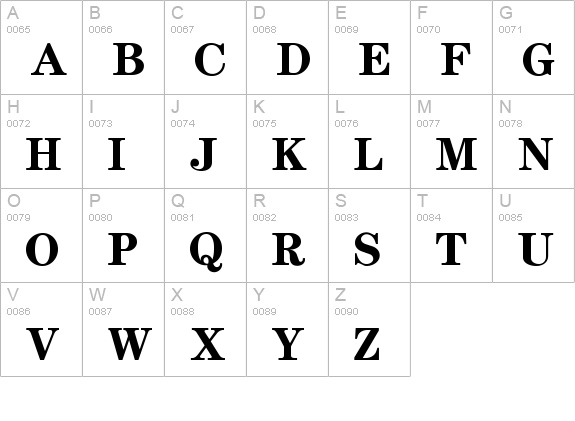
CenturyBold Font Details
CenturyBold is a bold and impactful font that commands attention with its strong, clean lines and classic aesthetics. Designed to make a statement, this font is perfect for headlines, titles, and any design project that requires a touch of sophistication and strength. With its timeless appeal and versatility, CenturyBold is a favorite choice among designers looking to add a touch of elegance to their work. The best part? CenturyBold is available for free download at FontsMarket.com, making it accessible to all designers and creatives looking to elevate their projects with a touch of boldness. Whether you're working on a branding project, poster design, or website layout, CenturyBold is sure to make a lasting impression with its bold and distinctive style. Download CenturyBold today and bring your designs to the next level.